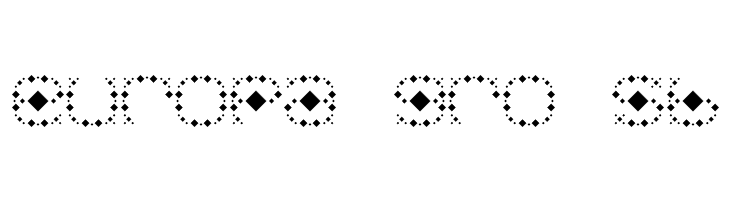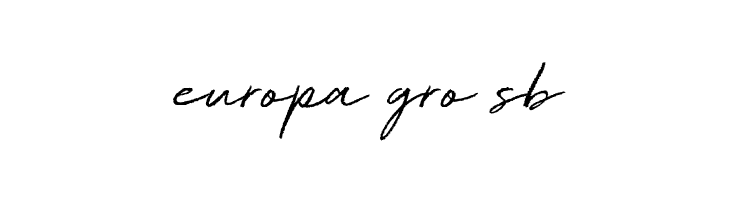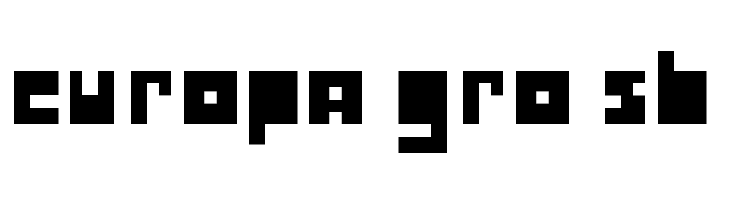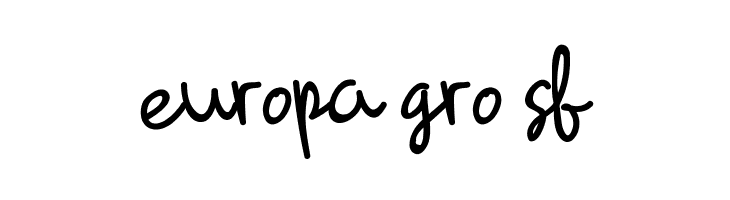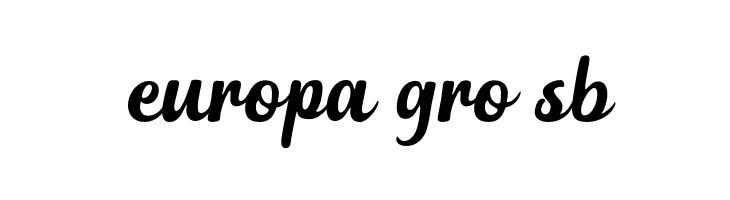
A flowing, cursive script font with elegant loops and swashes.
A bold, rounded font with a playful and friendly style.
A playful and bold script font with dynamic, flowing lines.
A bold, expressive script font with dynamic, interconnected characters.
A bold, expressive handwritten font with a modern and decorative style.
A dynamic, expressive handwritten font with fluid, cursive strokes.
An elegant and sophisticated script font with flowing, cursive letterforms.
A sophisticated script font with flowing, interconnected characters.
A classic serif font with elegant, sharp serifs and a sophisticated appearance.
A bold, pixelated font with a retro video game aesthetic.
An elegant italic font with sleek, elongated letterforms and high contrast strokes.
A sophisticated, high-contrast serif font with tall, narrow letterforms.
An elegant italic font with high contrast and sharp serifs, perfect for sophisticated designs.
A tall, elegant font with high contrast and sharp serifs, perfect for sophisticated designs.
A hand-drawn, whimsical font with irregular strokes and playful character.
A cursive, handwritten font with elegant and fluid strokes.
A jagged, horror-themed font with sharp, irregular strokes.
A bold, rounded font with a halftone texture, offering a modern and cohesive look.
A bold, slanted font with a dynamic and flowing script-like style.
A playful, bold, and rounded hand-drawn font with a whimsical style.
A bold, cursive font with fluid, connected strokes and a handwritten style.
A bold, cursive font with elegant, sweeping curves and high contrast.
A bold, cursive font with dynamic curves and expressive loops.
A bold, shadowed font with a three-dimensional effect, perfect for striking designs.
An elegant, flowing cursive font with intricate connections and graceful curves.
An elegant, cursive italic font with a flowing, handwritten style.
A modern handwritten font with elegant, fluid strokes and a cursive style.
A bold, dripping font with a horror-themed, decorative style.
A bold, playful font with a three-dimensional outline and rounded, slightly italicized characters.
A graceful and elegant script font with flowing, cursive lines.